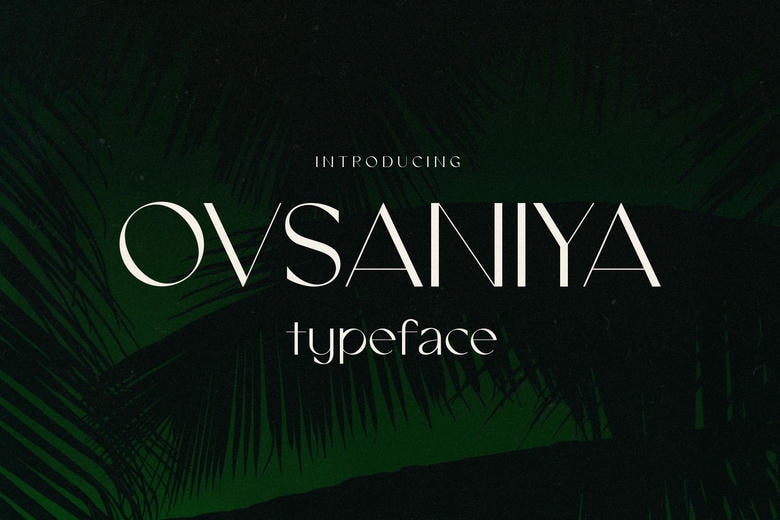
Ovsaniya Font
Ovsaniya is a timeless sans serif font, Perfect for branding projects, Logo design, Clothing Branding, product packaging, magazine headers, or simply as a stylish text overlay to any background image.
Ovsaniya Sans Serif Font